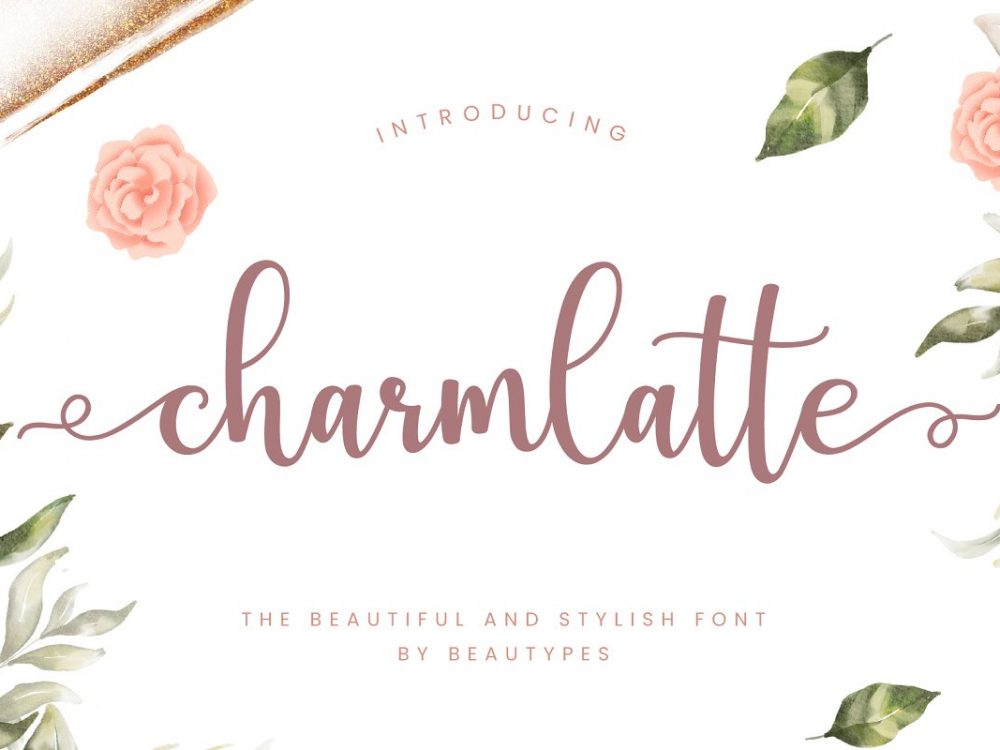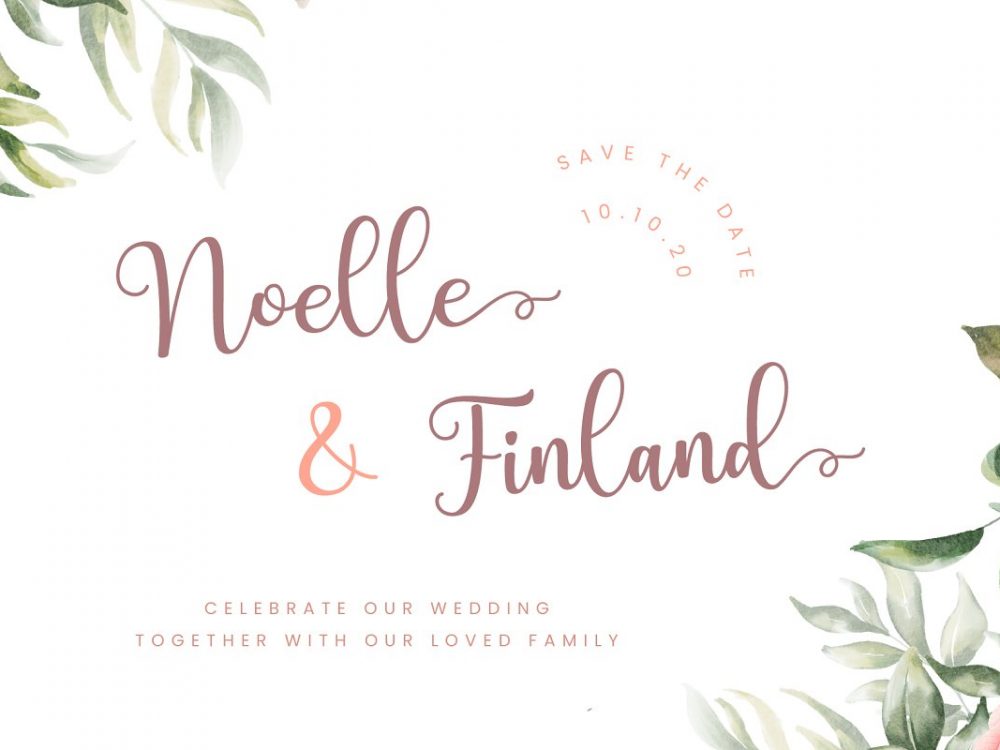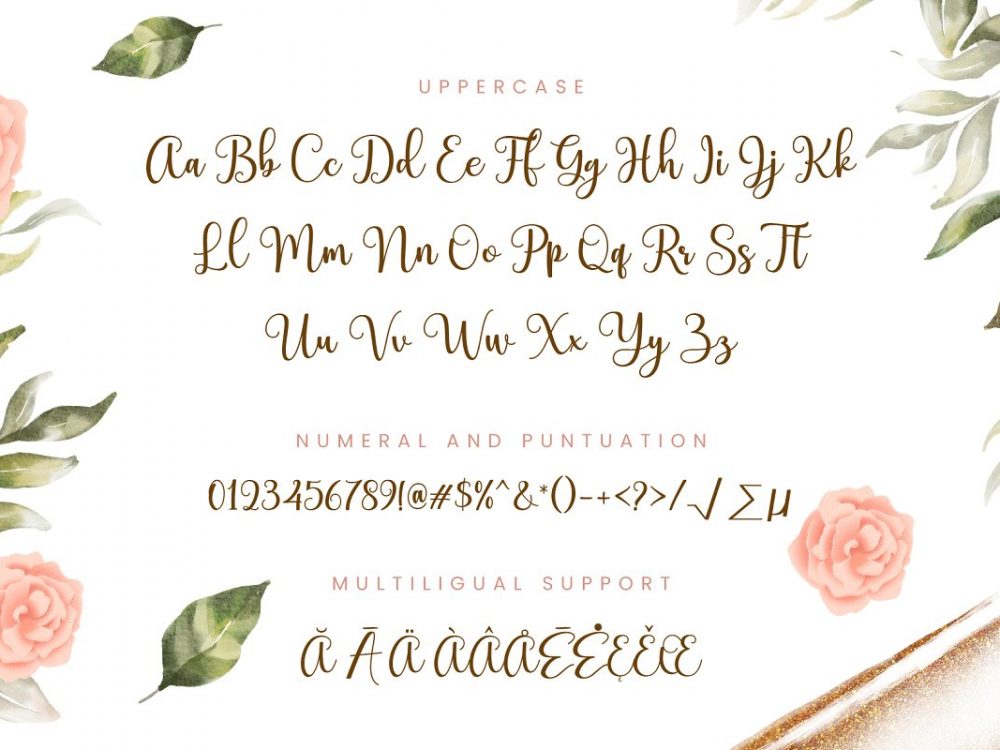
Charmlatte Free Font
Charmlatte Free Font is an interesting curly modern font that features a calligraphic style. This font is very suitable for creating various projects that require a script font. You can use this font to create branding projects, logos, wedding designs, social media posts, advertisements, product packaging, product designs, label, photography, watermark, invitation, stationery, and more. If you like it don’t forget to check out the full version.